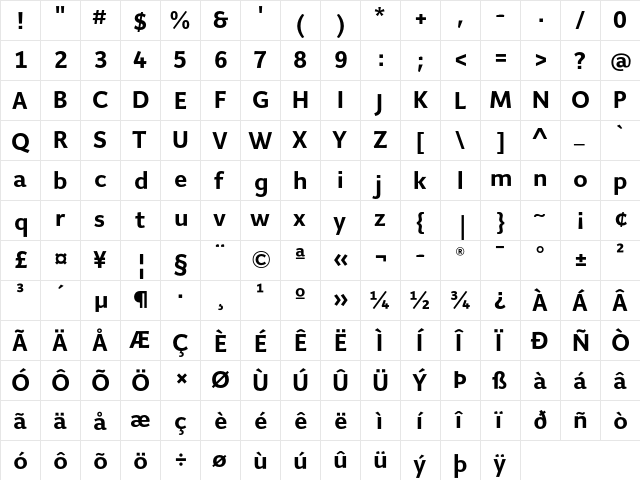
Giacomo LT Bold
| Designer | James Montalbano |
Design Context for Giacomo LT Typeface
Giacomo LT is a composed and adaptable typeface that performs quietly and consistently across a wide range of design contexts. The heavy weight commands attention and anchors typographic hierarchies.